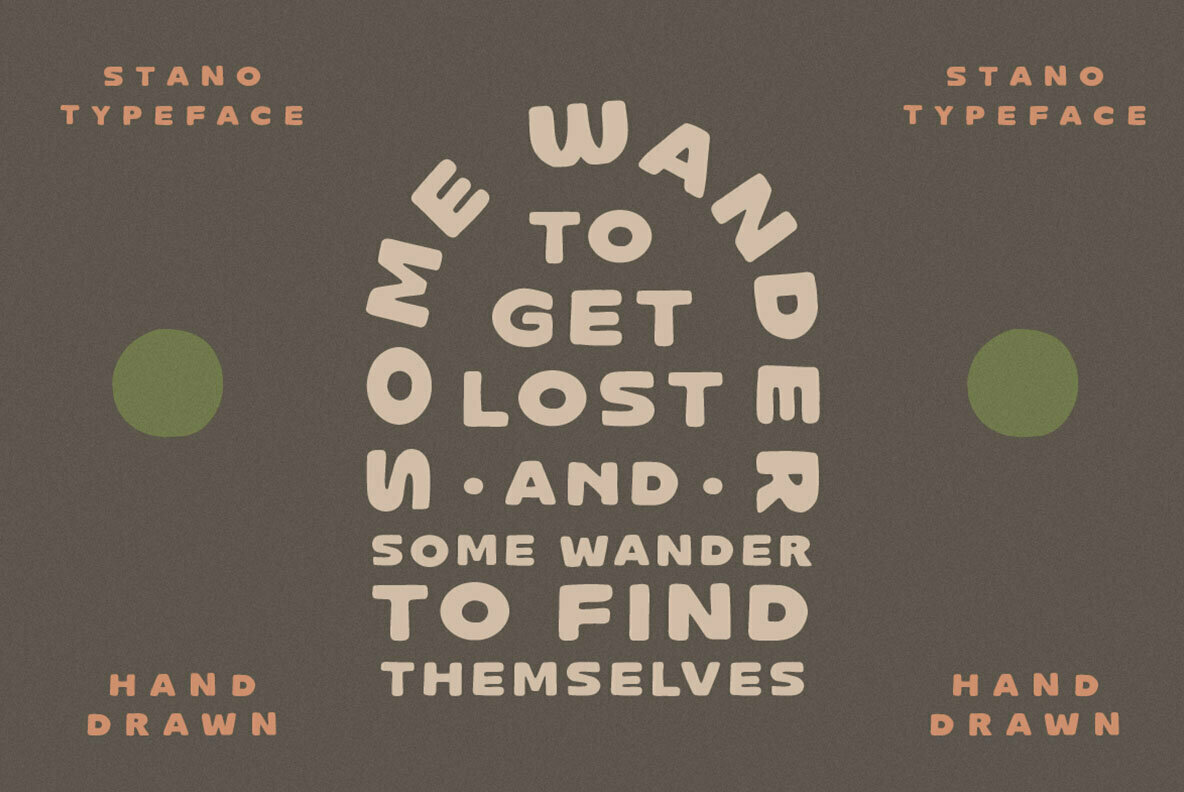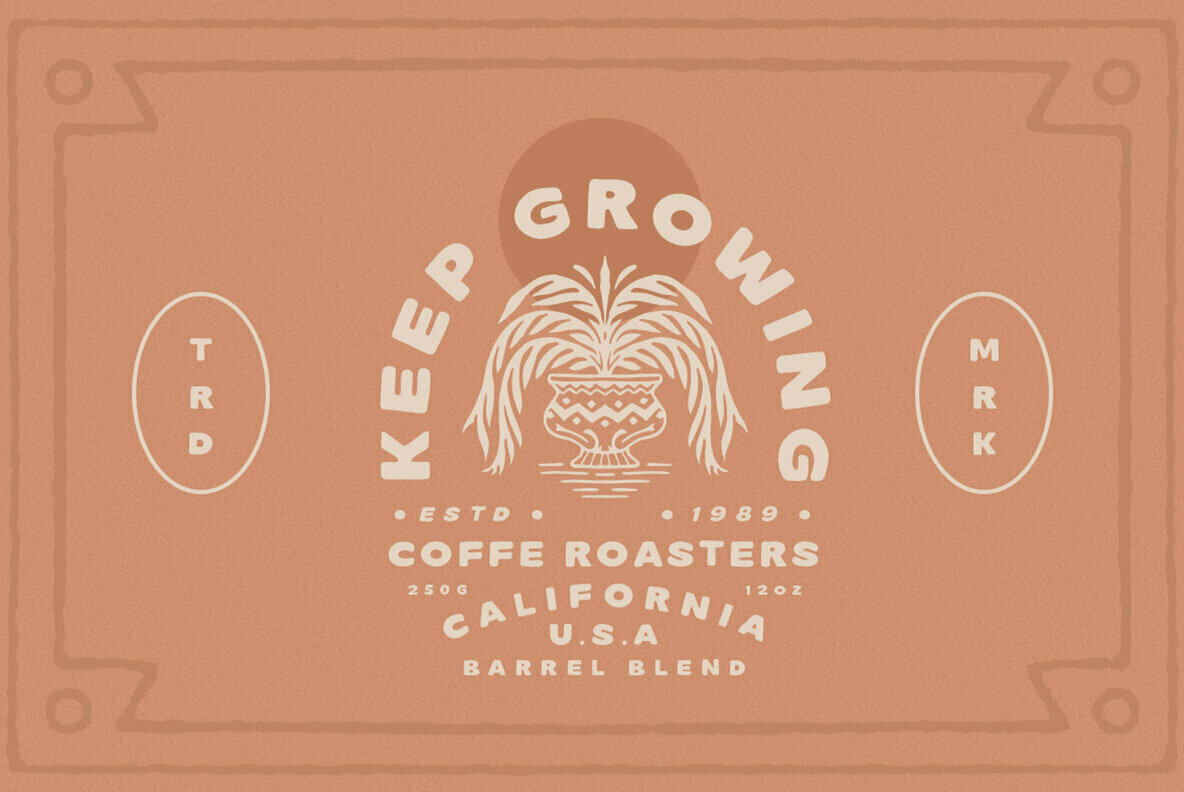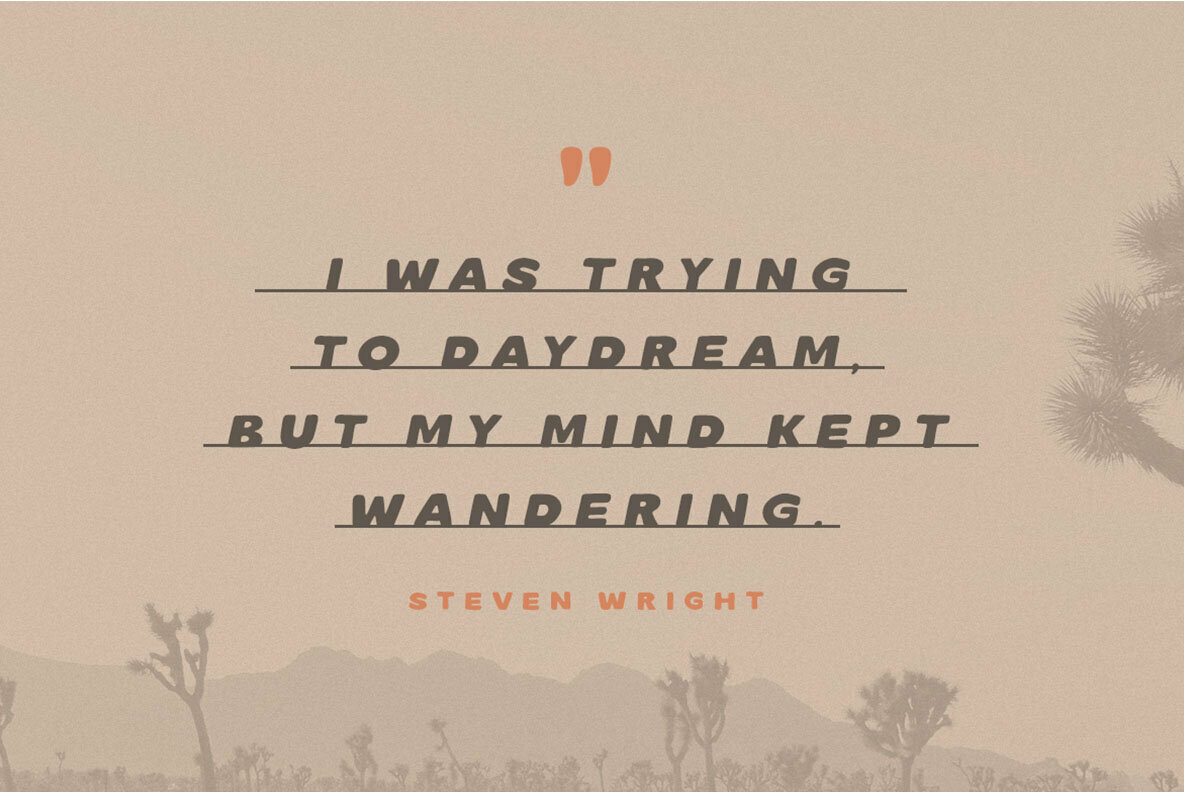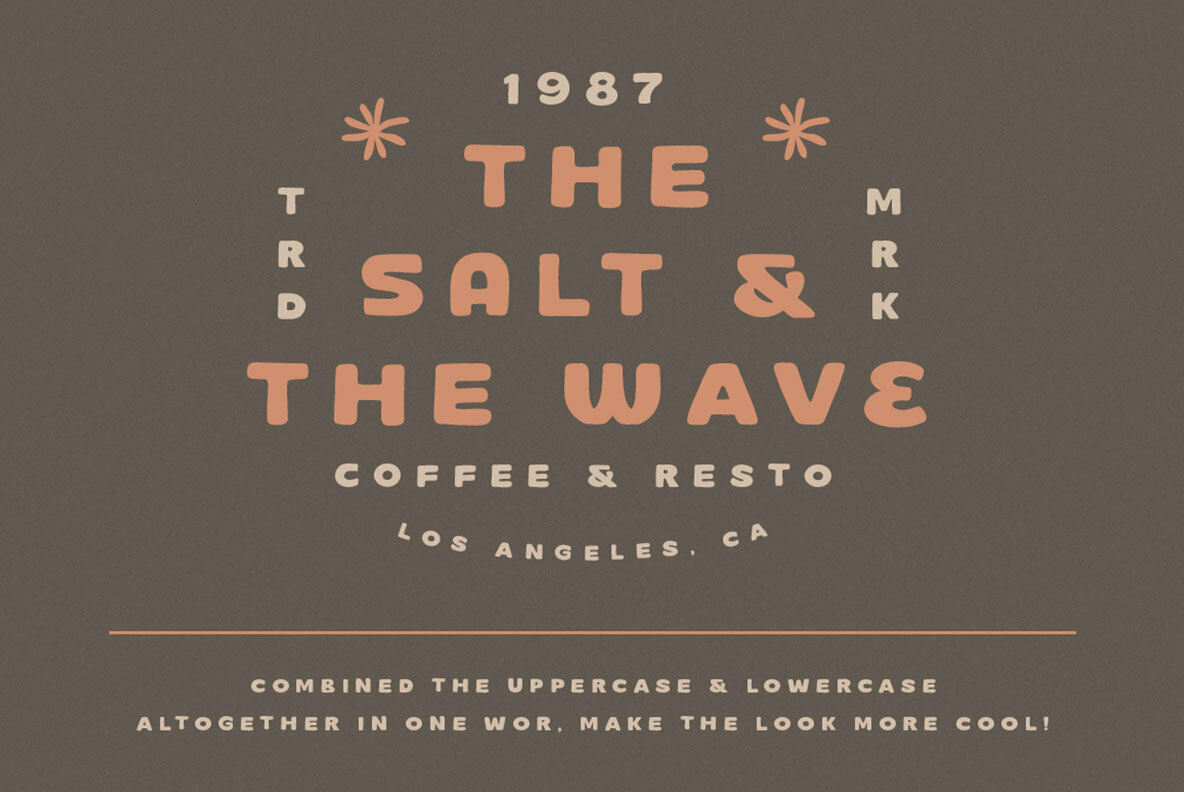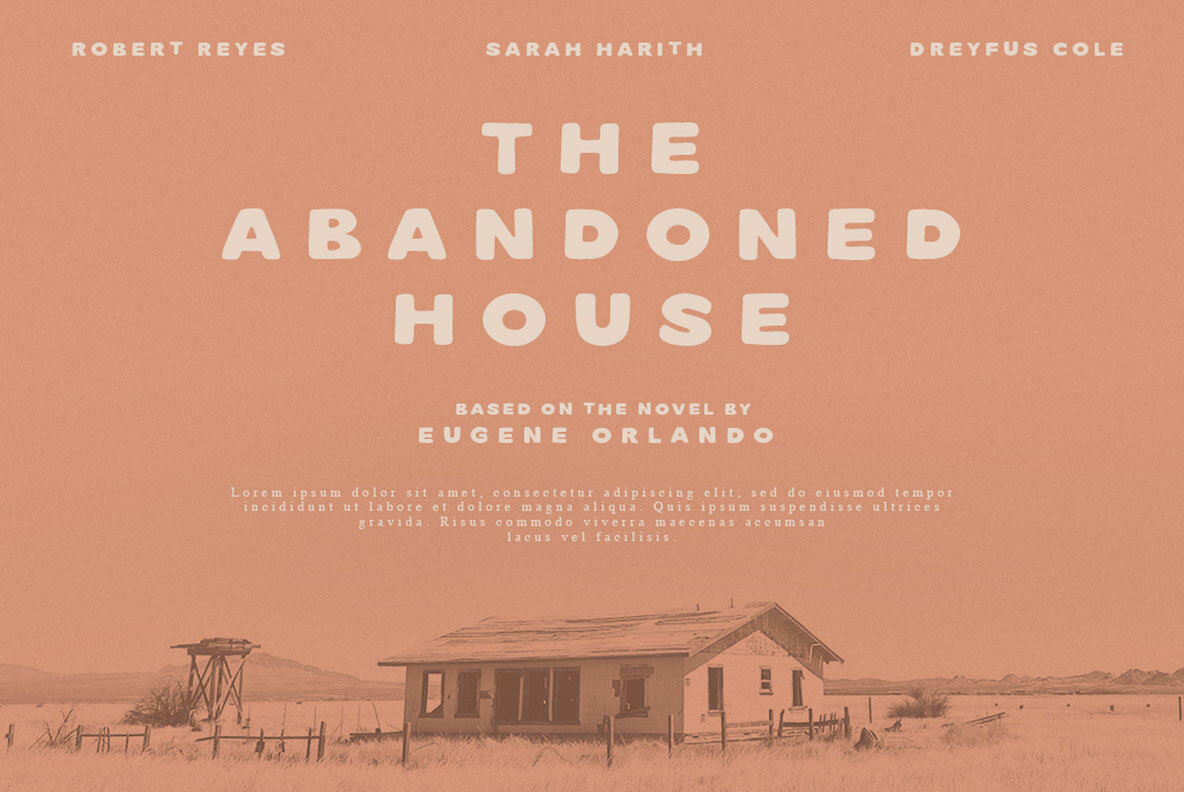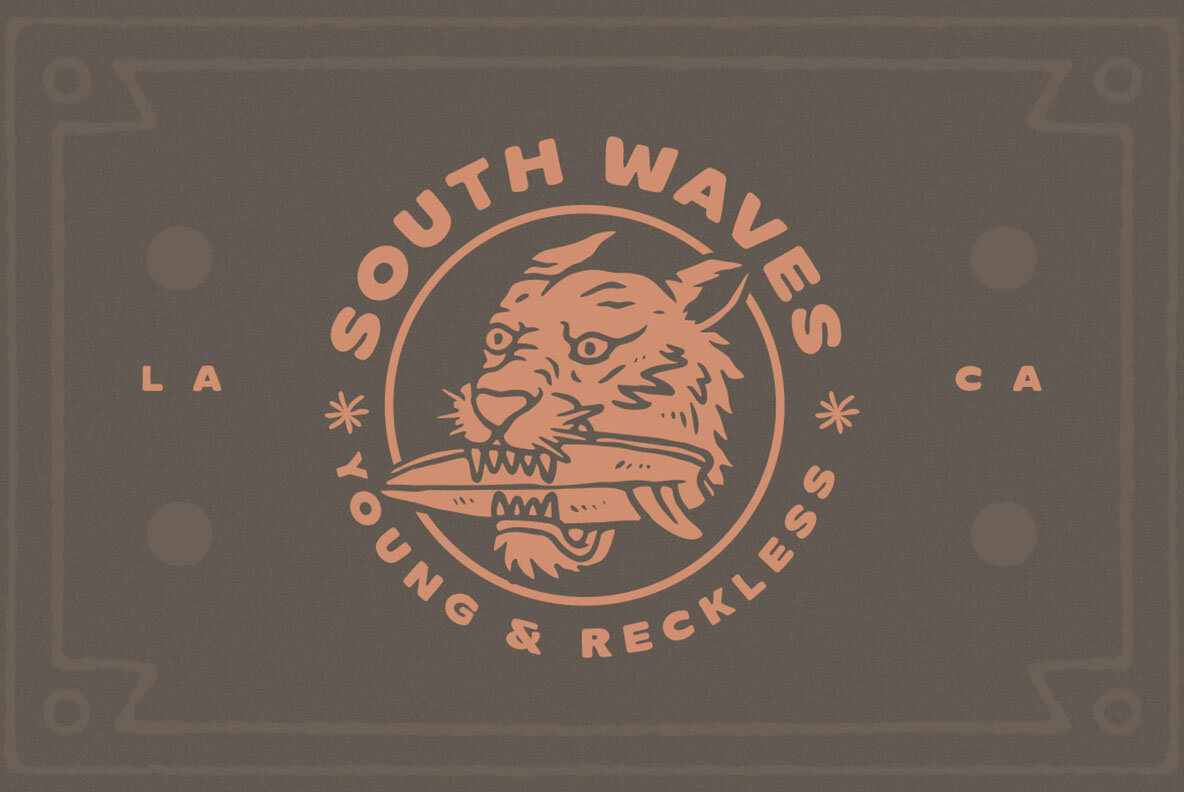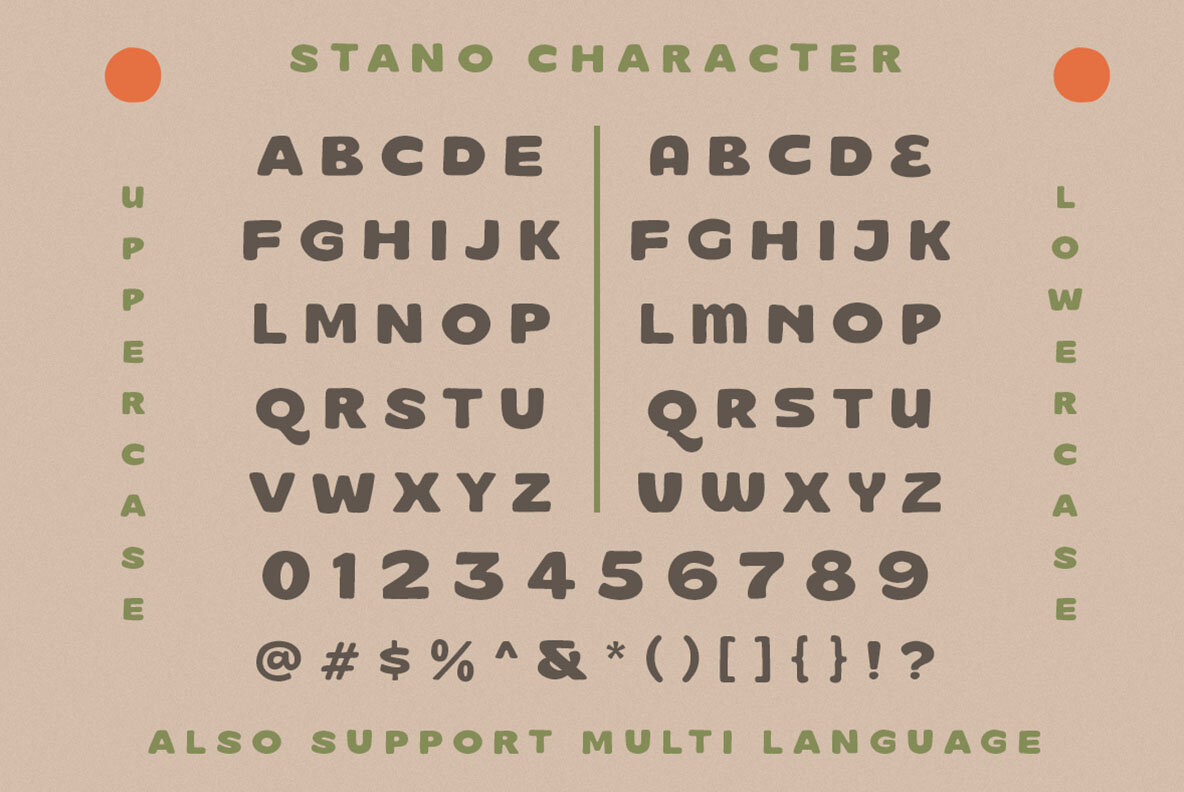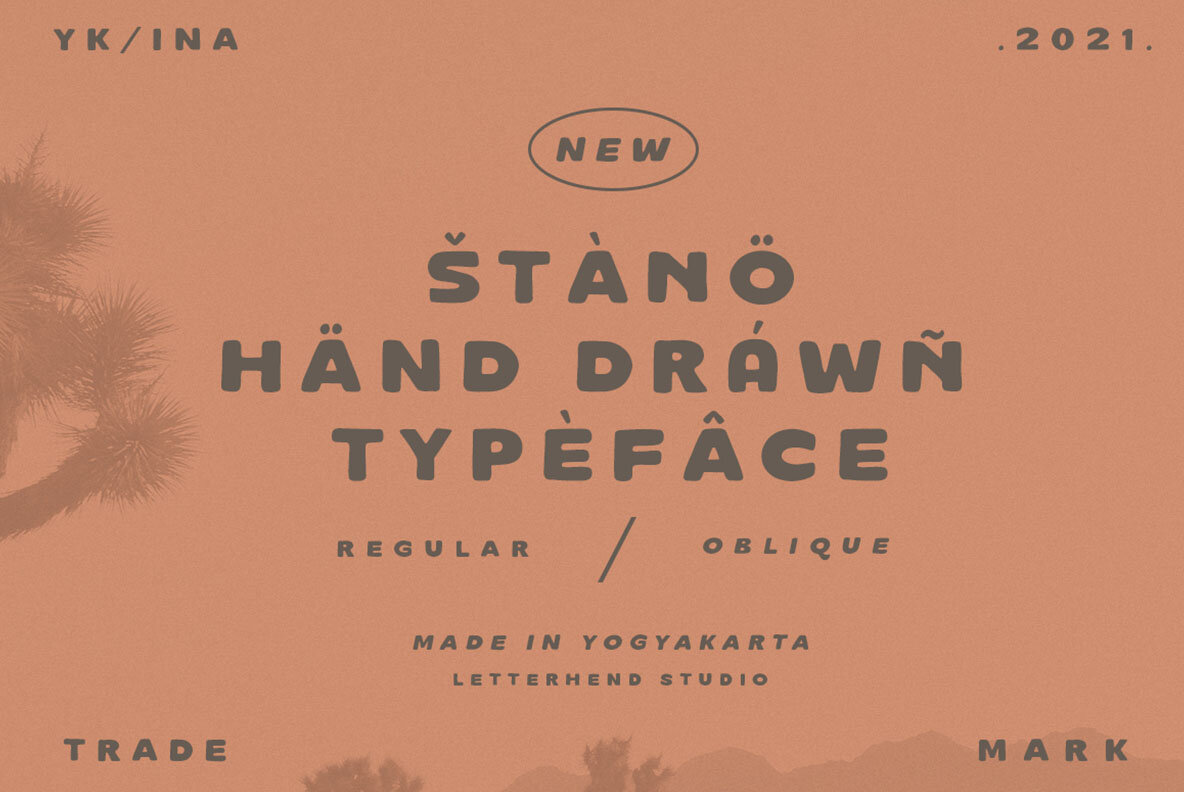
Stano Sans Font
Stano Sans is a distinguished typeface combining strength and boldness with a touch of nostalgic charm. Ideal for logos, headlines, and signs, this font also lends itself beautifully to formal contexts such as invitations, labels, magazines, and greeting cards. Whether you're designing packaging, fashion materials, or stationery, Stano Sans offers a versatile choice for any advertising endeavor.Stano Sans: Bold Sans Serif With Vintage Flair